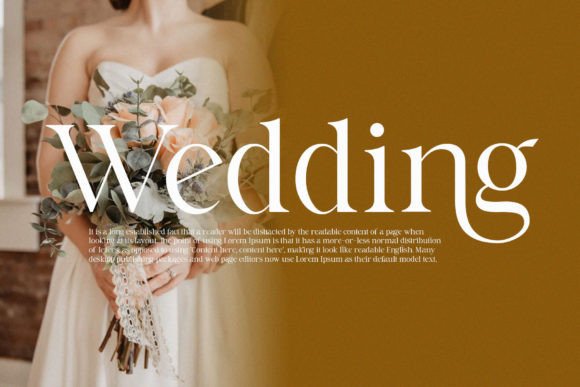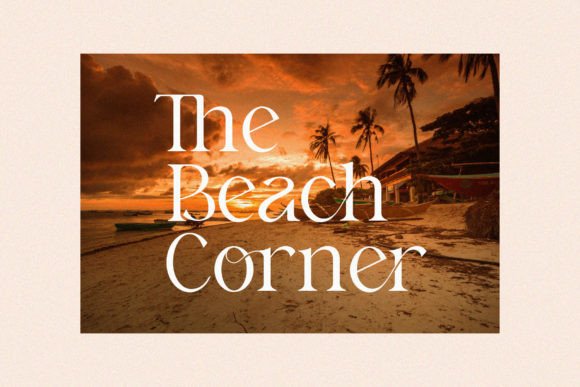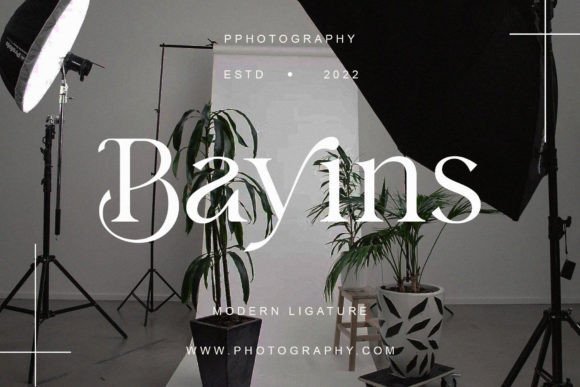
Introduction to Making Standing Font
Making Standing is an exquisite serif font.
👤 Author Graphicxell
Extremely versatile, this typeface is perfect for logos, weddings, invitations, quotes, advertisements, print, magazines, and more .
Key Features of Making Standing Font
Why Choose Making Standing Font?
Making Standing Font offers exceptional quality and versatility, making it a valuable addition to your design toolkit. Whether you’re creating for personal projects or commercial use, Making Standing Font delivers professional results.